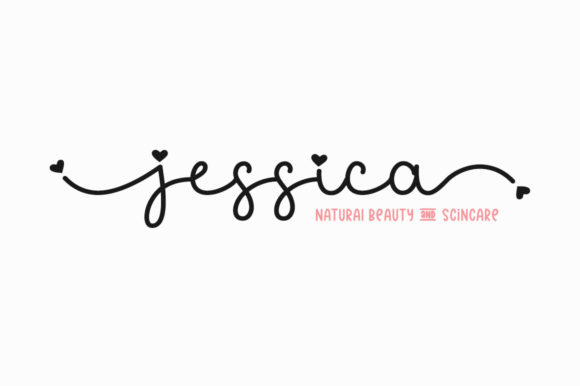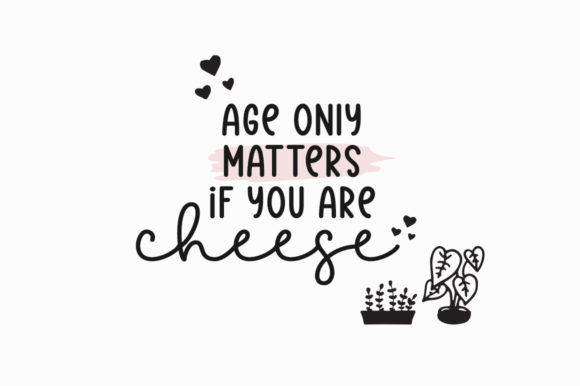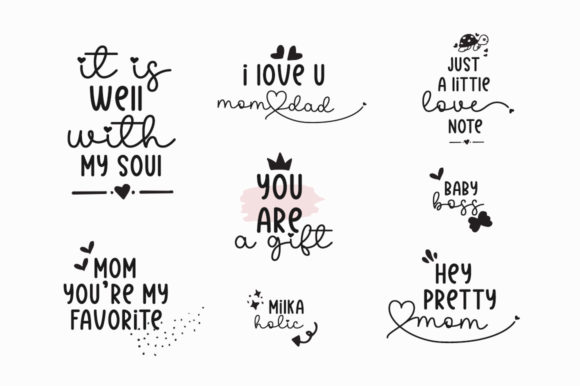
Millie Font
About the Millie Font
Make a bold statement with Millie Font, a powerful and memorable font. Millie consists of two fonts designed to complement each other perfectly. Together or apart, these fonts are ideal for adding a chic and cheery touch to your crafts. This font is PUA encoded which means you can access all glyphs and swashes with ease!
Millie’s playful yet sophisticated personality makes it ideal for branding projects needing a touch of modern charm, particularly logos, short headlines, and packaging designs for products targeting a young, fashionable audience. It also works well for invitations, short social media posts, and eye-catching posters. However, its decorative nature makes it unsuitable for body text or lengthy paragraphs, as well as user interfaces requiring high readability.
Pairing Millie with a clean sans-serif like Open Sans for body copy creates a strong contrast and balanced readability. For a more playful approach, consider pairing it with a rounded geometric sans-serif such as Lato. A classic serif like Garamond could add a touch of timeless elegance to offset Millie’s modernity, depending on the desired aesthetic.
Its overall aesthetic is best described as cheerful and modern, making it a versatile choice for projects needing a fun, approachable, yet stylish feel.
Millie Font Usage Examples
Millie Font Example